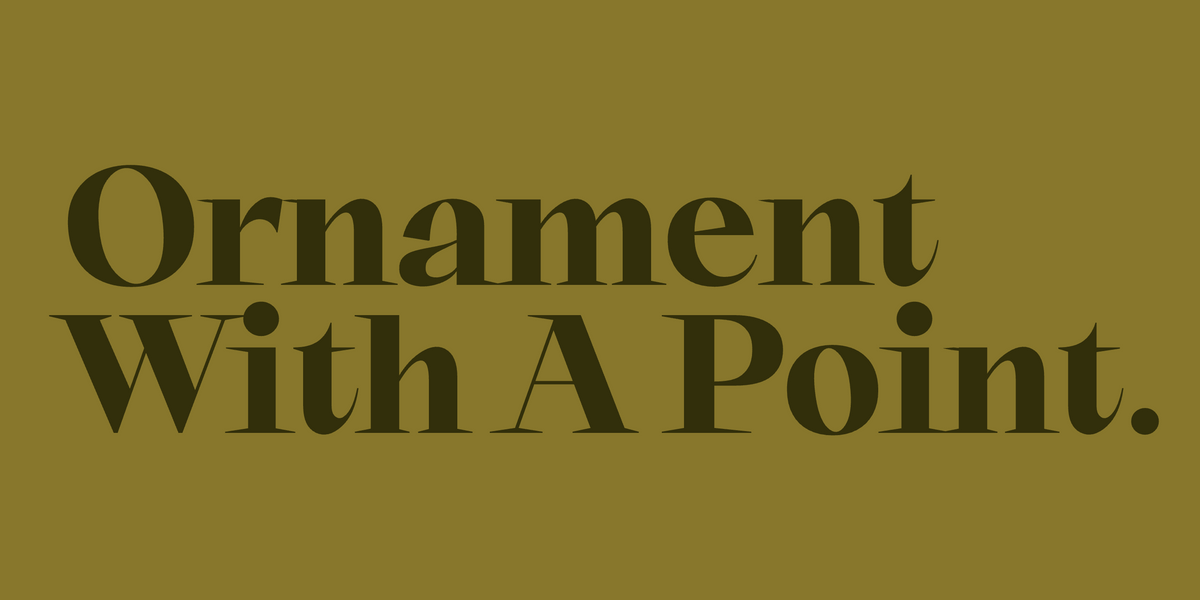
Art Nouveau-Inspired Fonts for Decorative Branding
Ornament With A Point. Set in Rozi by Mojomox
Art Nouveau as a movement ran from roughly 1890 to 1910, defined by organic curves, botanical motifs, and a rejection of strict classical proportions. The typography that came out of it (Mucha posters, Eugène Grasset's lettering, the early Vienna Secession) influenced everything from Edwardian advertising to the psychedelic poster revival of the 1960s. Brands today reach for Art Nouveau-inspired type when they want decorative confidence without going full vintage.
The Mojomox catalog doesn't include strict Art Nouveau revival fonts (those tend to read costume-y in 2026). What it does include is a handful of fonts that share the underlying aesthetic: organic curves, considered ornament, and the kind of expressive personality that the era valued.
1. Saltz
Sharp condensed serif with editorial confidence. The drama of Saltz at large sizes channels the same dramatic instinct that drove Art Nouveau posters.
2. Aezra
Sharp narrow serif with long terminals. The terminal detail is where Art Nouveau influence shows; the rest is more disciplined than the original era.
3. Ques
Wide elegant contrast serif-style typeface. The contrast and refined character give Ques a decorative confidence that fits the tradition.
4. Cesty
Friendly rounded display font with 70s influence. The 70s psychedelic revival drew directly from Art Nouveau; Cesty inherits that lineage through that intermediary.
5. Lace Rounded
Handwritten line font with playful character. The decorative quality of Lace channels the hand-drawn confidence of Art Nouveau lettering directly.
6. Rozi
Modern elegant font with sharp serifs. The decorative serifs and confident strokes have the same instinct as the original Art Nouveau era's editorial type.
7. Bauhaus Chez
Rounded high-contrast typeface. The contrast and decorative quality fit the Art Nouveau aesthetic, modernized for 2026 packaging and editorial work.
How to use Art Nouveau-influenced type
The original era used type as the primary visual element, surrounded by white space or matched with botanical illustration. The modern use is more restrained. Pair these fonts with quiet sans-serifs for body text and let the decorative font carry the wordmark or hero headline. Beauty, hospitality, fashion, and editorial work all use this register effectively.